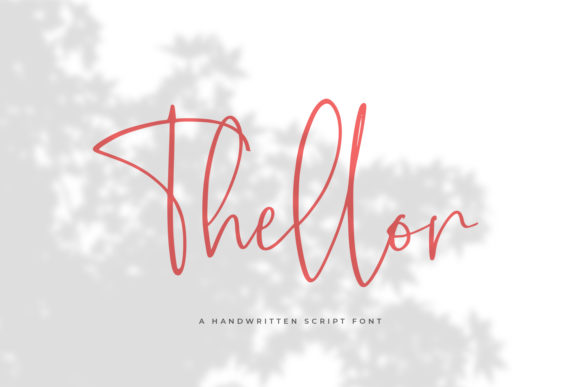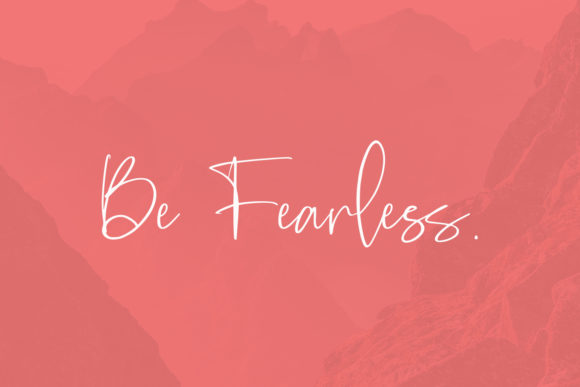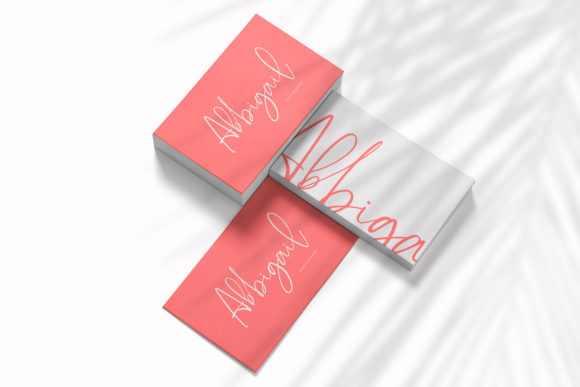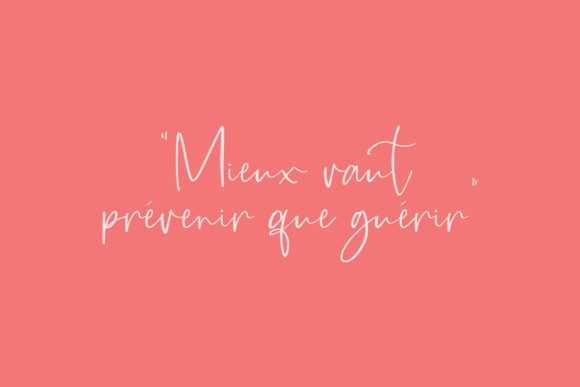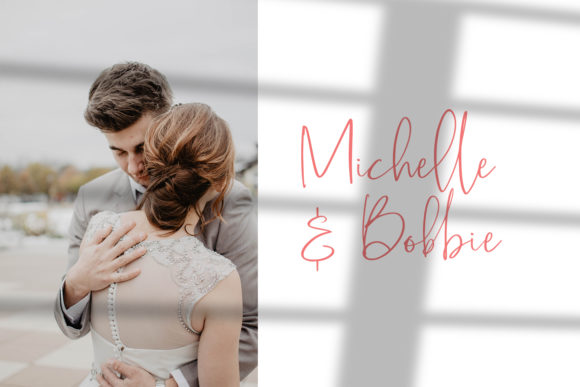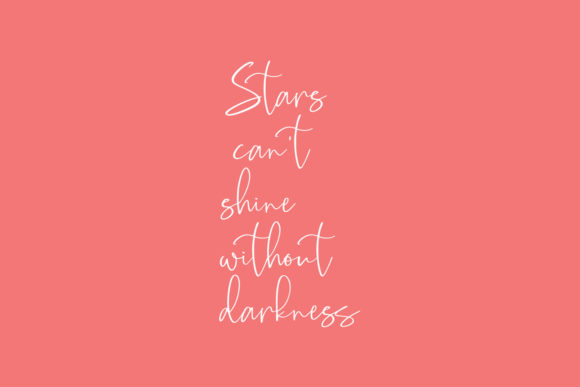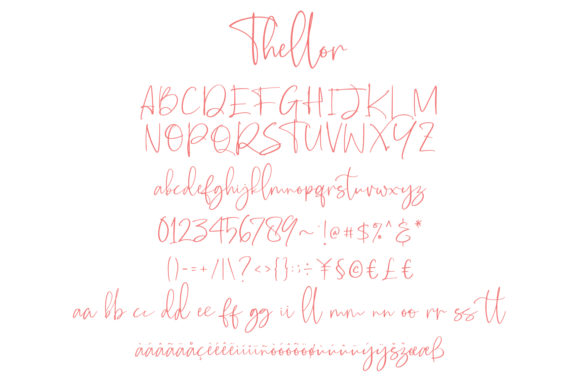
HomeScript FontsThellor Font Script Fonts Thellor Font FacebookXPinterestWhatsApp Thellor Font Poster 2 Thellor Font Poster 3 Thellor Font Poster 4 Thellor Font Poster 5 Thellor Font Poster 6 Thellor Font Poster 7 About Thellor Font Thellor is an elegant handwritten script font. Get inspired by its unique shape and character! DOWNLOAD NOW People also explored Shutters Font Sullthan Riyad Font Romans Font Lamora Font Paulline Font Cinco De Mayo Font Stuck with You Font Agus Hasny Font Too Stupit Font 263 0 TagsThellor Font Previous articleBrady FontNext articleRainbow Ocean Font LEAVE A REPLY Cancel reply Comment: Please enter your comment! Name:* Please enter your name here Email:* You have entered an incorrect email address! Please enter your email address here Website: Save my name, email, and website in this browser for the next time I comment. Personal Use Free BD Lofi Personal Use Free Read more about this font BD RatterBit Personal Use Free Read more about this font BD Beans Personal Use Free Read more about this font Rina Personal Use Free Read more about this font BLOG How to Install and Use Fonts on Windows, macOS, and Web Projects How to Install and Use Fonts on Windows, macOS, and Web Projects Fonts are a crucial part of design and branding. Whether you’re designing a... Free vs Paid Fonts: Why Investing in Premium Fonts Is Worth It 5 Fonts That Will Dominate Design Trends in 2026 Top 10 Handwritten Fonts That Elevate Your Designs